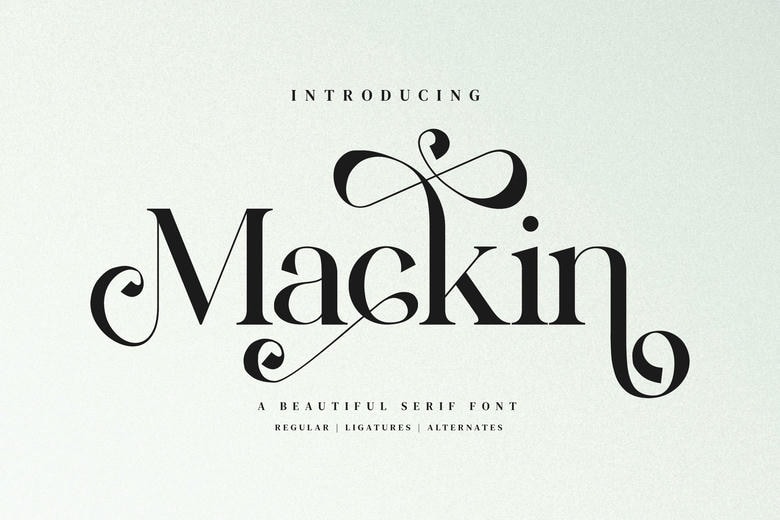
Mackin Font
Mackin Stylish Ligature Typeface takes inspiration from a well-known minimalist logo. It works well for templates, brochures, videos, branding, logos, and other design projects.
Mackin Beatiful Serif Font